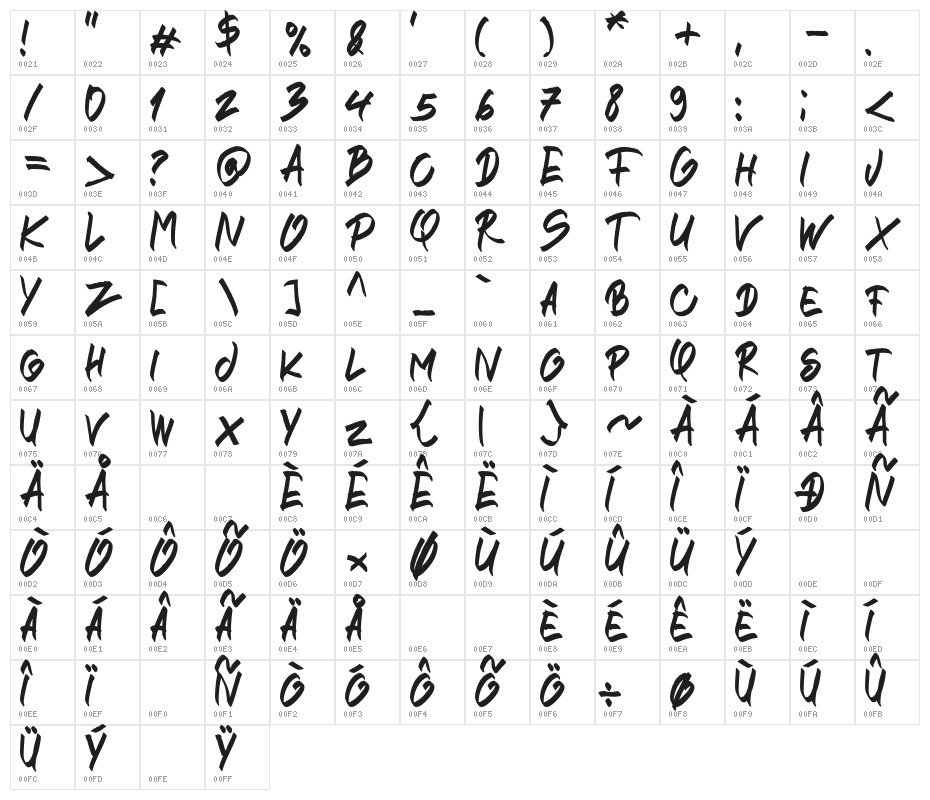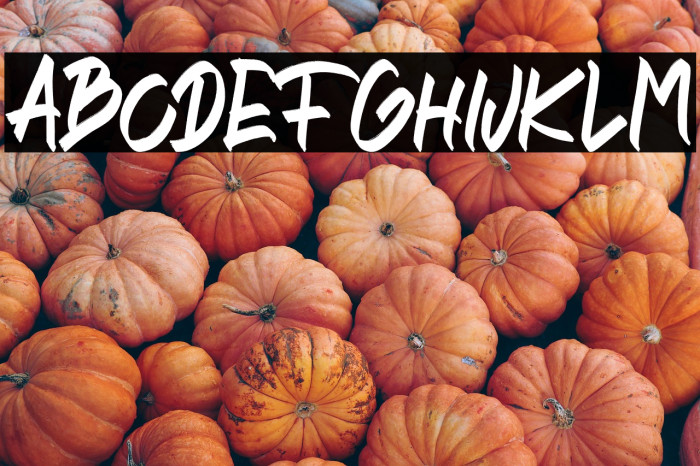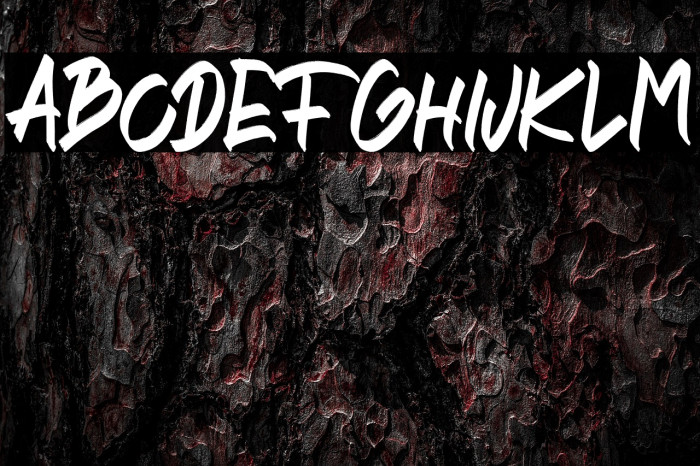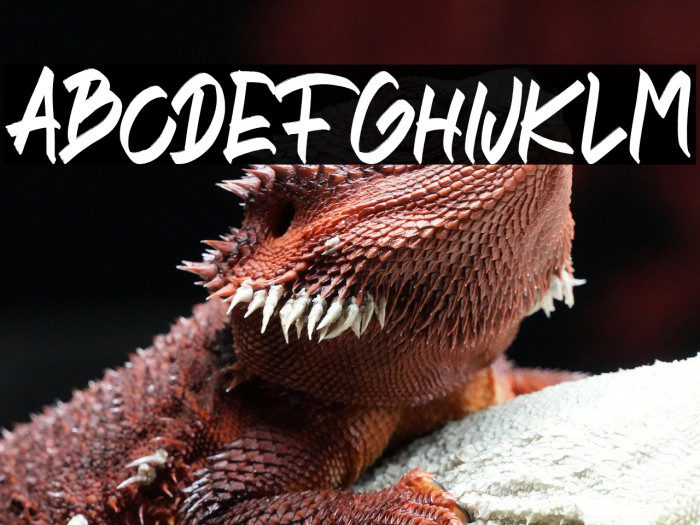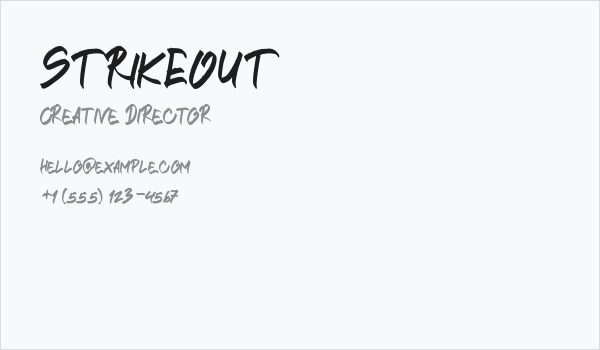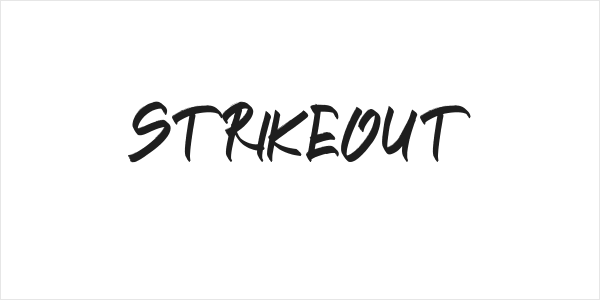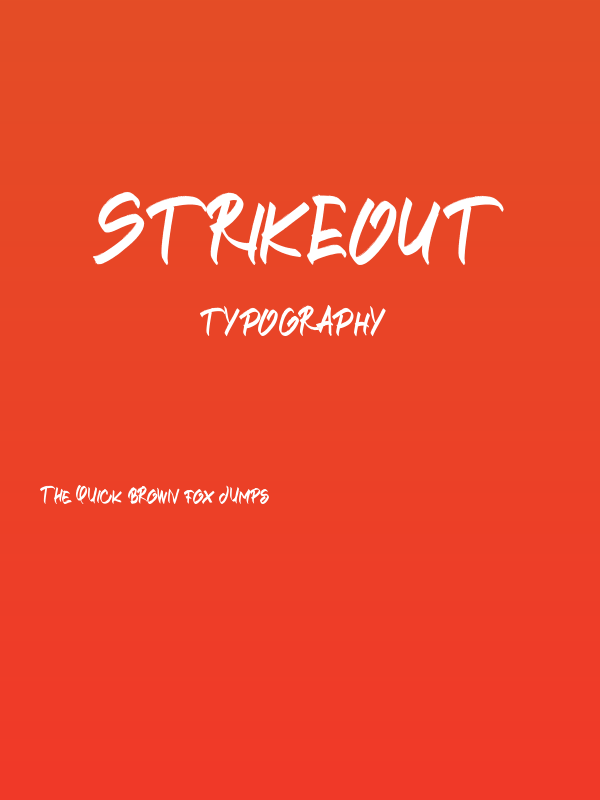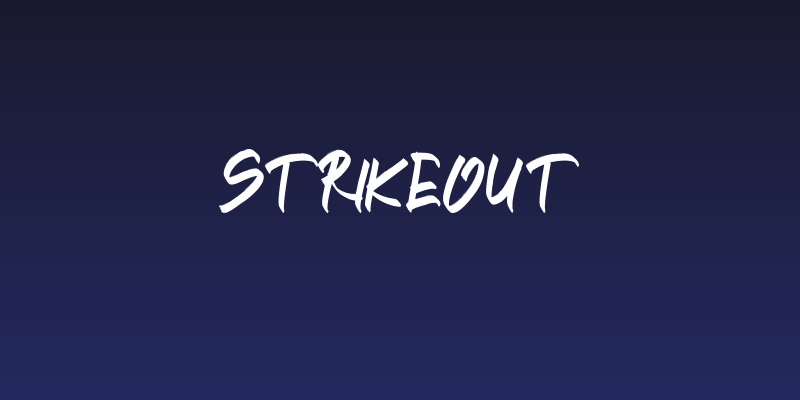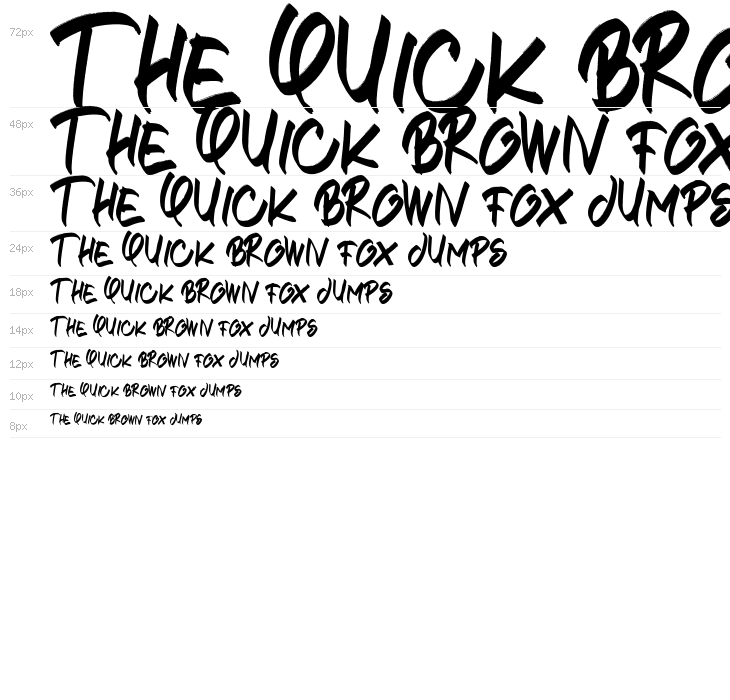
STRIKEOUT Font
STRIKEOUT Description
This font features a bold and dynamic handwritten style, characterized by its energetic and fluid strokes. The uppercase and lowercase letters exhibit a consistent slant, giving the text a sense of motion and urgency. The numbers and special characters maintain this lively aesthetic, ensuring a cohesive look across all elements. The brush-like texture of the strokes adds a personal and informal touch, making it ideal for projects that require a human element. The font's boldness ensures high readability, even at smaller sizes, while the unique character shapes provide a distinctive appearance.
| Proposed Projects | Ideal for branding, posters, social media graphics, and any project needing a personal, energetic touch. |